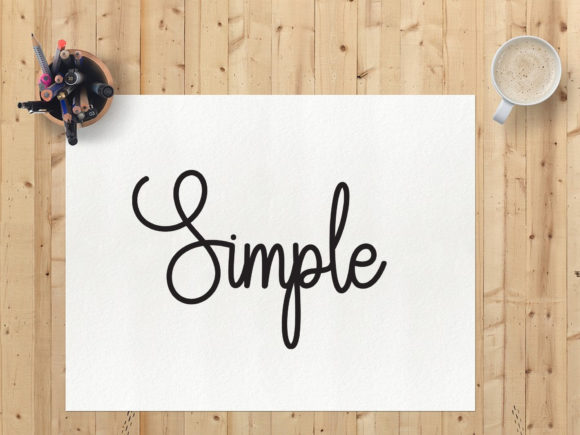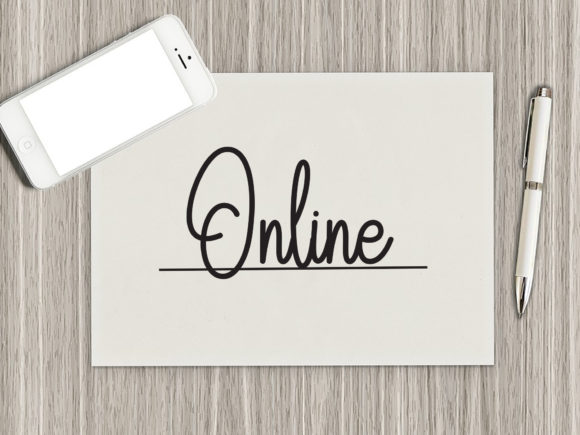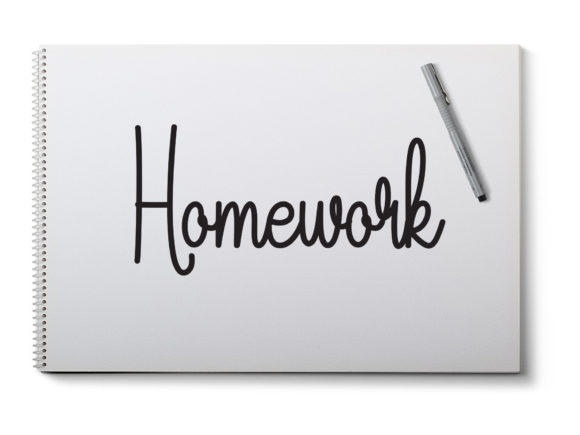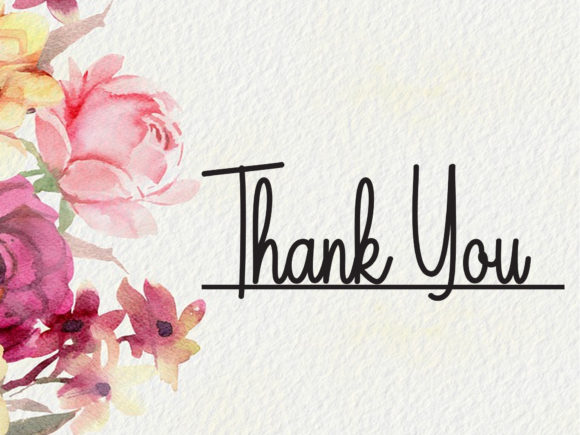
Signature is a beautiful handwritten font that is made with great care in order to produce the expected outcomes. This font can be used for writing quotes, titles, brand names, book covers, posters, or just any creation that requires a touch of elegance.